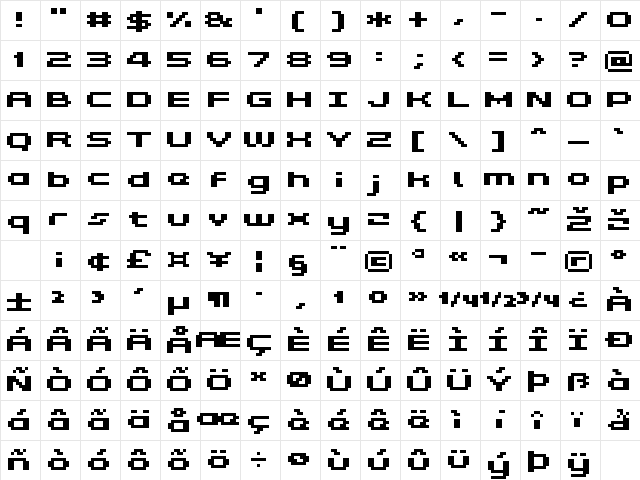
Complete Grixel Kyrou 5 Wide Bold Regular glyph index. Displaying only characters natively supported by Grixel Kyrou 5 Wide Bold Regular font.
Grixel Kyrou 5 Wide Bold is a composed and adaptable typeface that performs quietly and consistently across a wide range of design contexts. Its bold stroke weight gives it real presence on the page.
Who designed the Grixel Kyrou 5 Wide Bold Regular font?